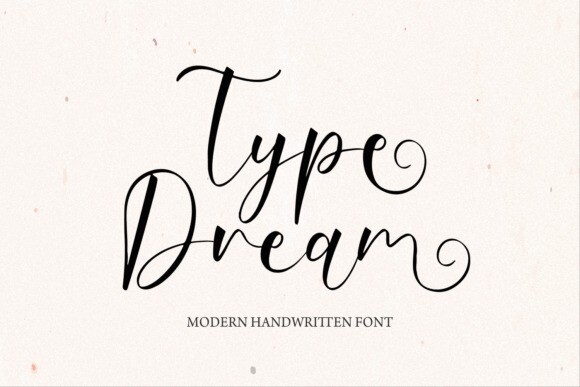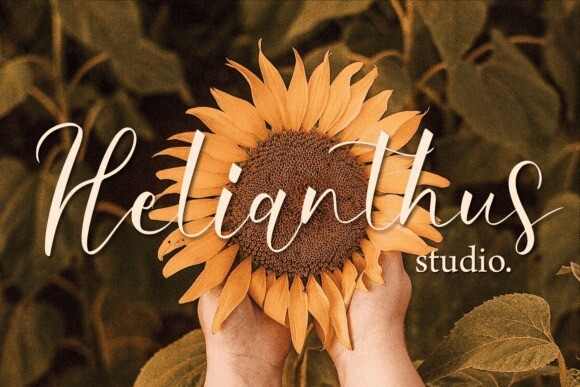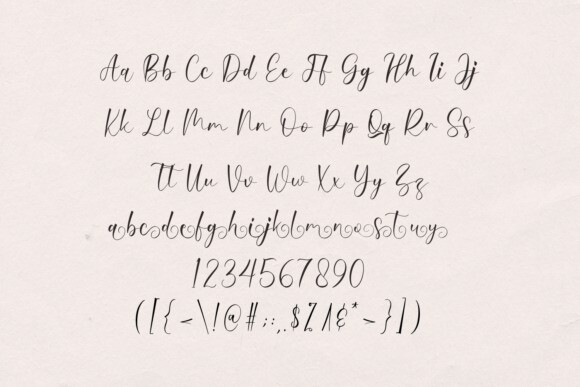
Type Dream Font
Type Dream Font is a Handwritten Script font that will make your designs look classic, boho, and feminine. It is a great font for events, wedding projects, fashion, apparel projects, signatures, album covers, logos, branding, magazines, social media posts, and advertisements, but it also works great for other projects. Add it to your fonts’ library, and it will enhance your creativity!